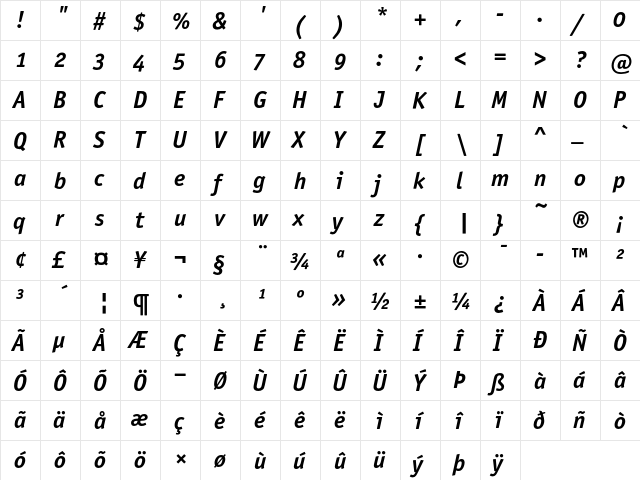
OfficinaSansITC Bold Italic OS Font Preview
Design Context for OfficinaSansITC Typeface
OfficinaSansITC offers clean, dependable letterforms without strong stylistic allegiance, making it a practical choice for designers who need flexibility. Its italic angle brings a sense of urgency and motion to the letterforms. The heavy weight commands attention and anchors typographic hierarchies.
Pro Tip: Try OfficinaSansITC for annotation and caption copy alongside an upright companion — the contrast in angle creates a dynamic but ordered typographic system.